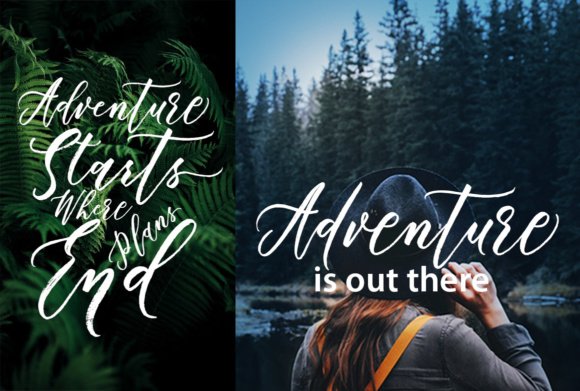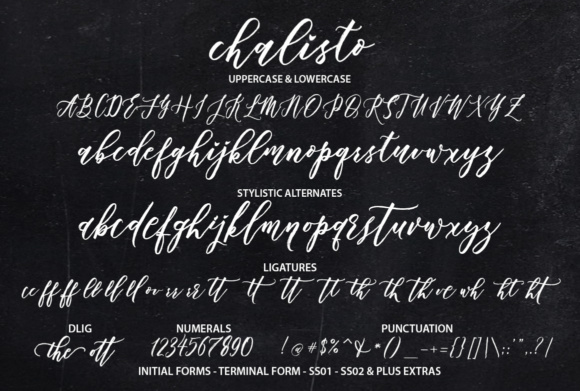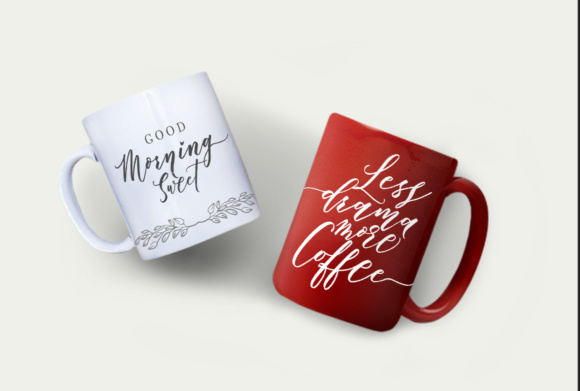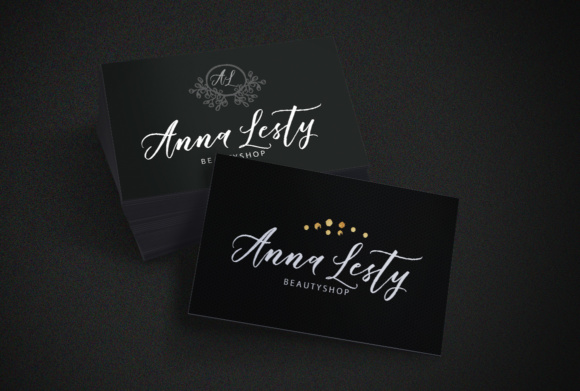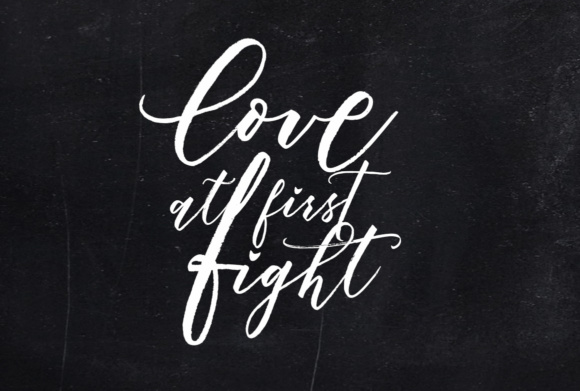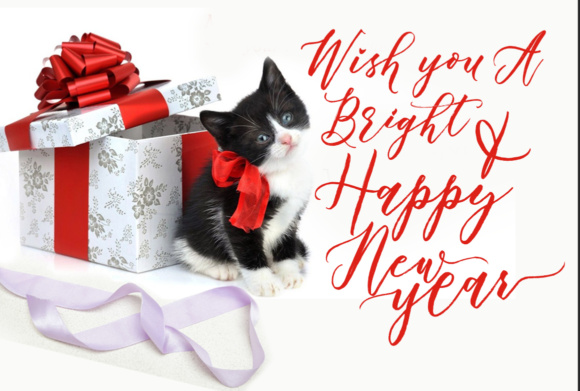
Introducing Chalisto Font: A Stunning Calligraphy Font for Modern Designs
In the world of typography, few fonts manage to capture the essence of elegance and modernity as effectively as Chalisto Font. This beautiful calligraphy font has been designed to add a touch of sophistication to a wide range of project types, from branding and advertising to packaging and digital media. With its appealing dropped baseline and irregularities, Chalisto Font is the perfect choice for designers and crafters looking to create fresh and contemporary designs.
What Makes Chalisto Font Stand Out?
Chalisto Font boasts a unique combination of characteristics that set it apart from other calligraphy fonts. Its dropped baseline gives it a distinctive, elegant look that adds a touch of refinement to any design. The irregularities in the font also contribute to its modern and fresh feel, making it perfect for designers who want to create unique and eye-catching designs.
One of the key features of Chalisto Font is its versatility. This font can be used in a wide range of project types, from:
- Branding and Advertising: Use Chalisto Font to create stunning logos, advertisements, and marketing materials that capture the attention of your target audience.
- Packaging: Add a touch of elegance to your product packaging with Chalisto Font, perfect for luxury brands and high-end products.
- Digital Media: Use Chalisto Font to create engaging social media graphics, blog posts, and website content that stands out from the crowd.
- Crafting and DIY: Chalisto Font is also perfect for crafters and DIY enthusiasts who want to add a personal touch to their projects, such as handmade cards, invitations, and scrapbooking.
Why Choose Chalisto Font?
There are many reasons why designers and crafters choose Chalisto Font for their projects. Here are just a few:
- Unique and Eye-Catching: Chalisto Font is a one-of-a-kind calligraphy font that adds a touch of elegance and sophistication to any design.
- Versatile: This font can be used in a wide range of project types, making it a great addition to any design library.
- High-Quality: This font is designed to high standards, ensuring that it looks great in any design.
Tips for Using Chalisto Font
To get the most out of Chalisto Font, here are a few tips:
- Experiment with Different Sizes: Chalisto Font looks great in a range of sizes, from small and delicate to large and bold.
- Play with Color: This font looks stunning in a range of colors, from classic black and white to bold and bright hues.
- Mix and Match: Try pairing Chalisto Font with other fonts to create unique and eye-catching designs.
Chalisto Font is a stunning calligraphy font that is perfect for designers and crafters looking to add a touch of elegance and sophistication to their projects. With its unique combination of characteristics, versatility, and high-quality design, this font is sure to become a favorite in any design library. Whether you’re working on a branding project, packaging design, or digital media, Chalisto Font is the perfect choice for creating fresh and modern designs.